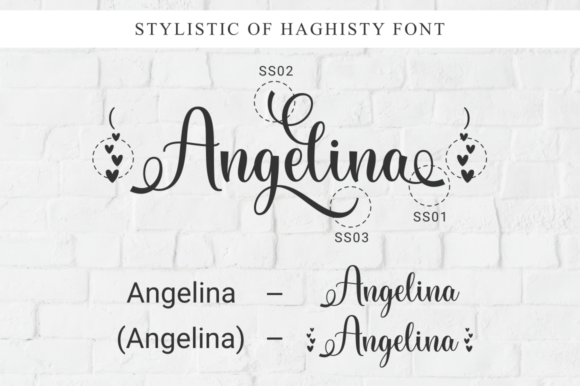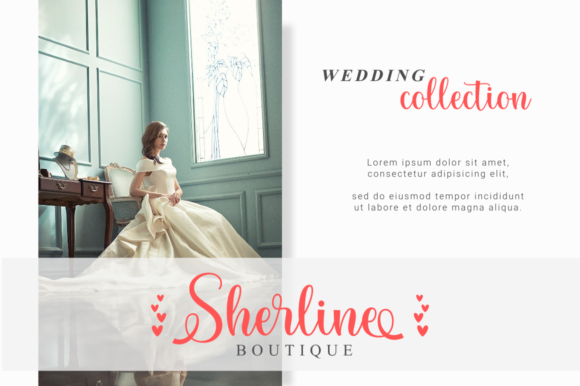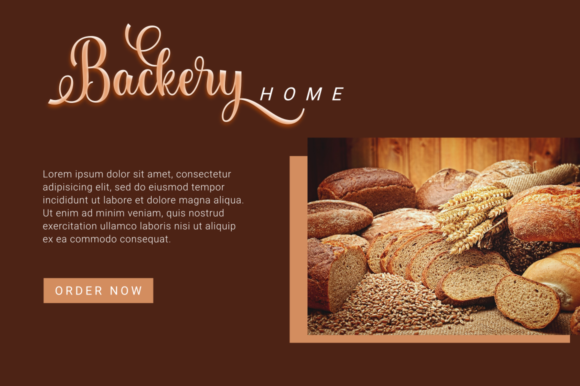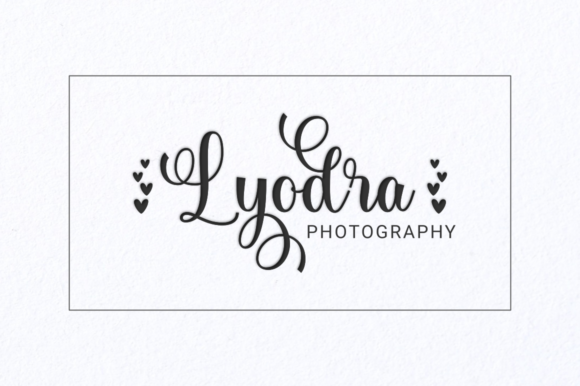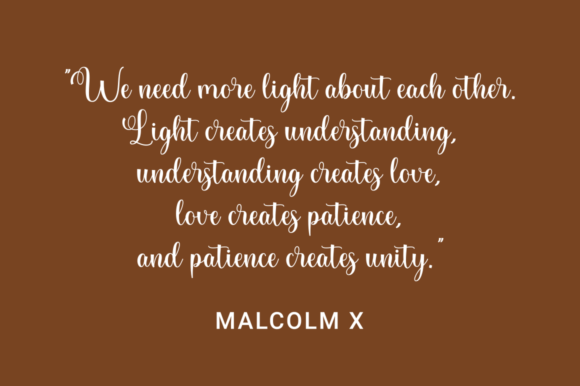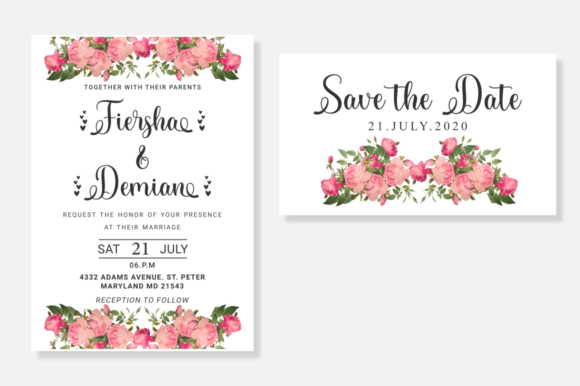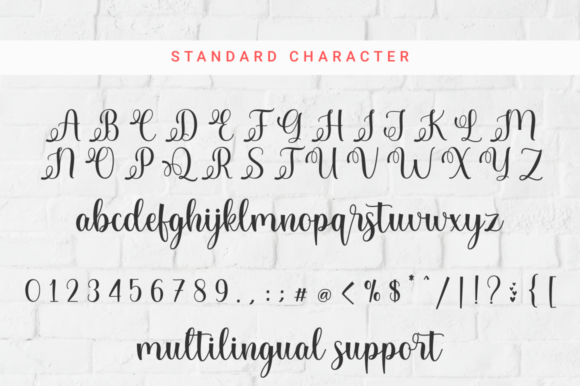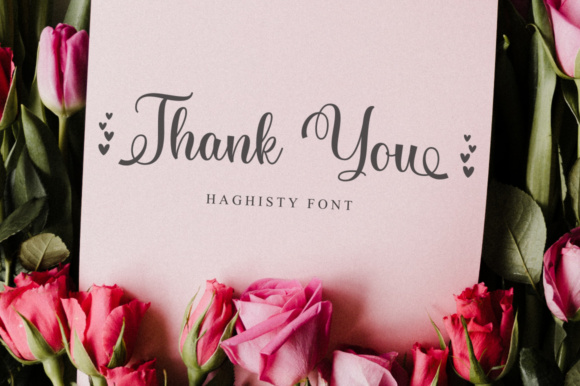
Haghisty Font
About Haghisty Font
Haghisty is a truly enchanting and magical handwritten font that captivates with its beauty and charm. Its elegant strokes, intricate details, and flowing lines make it a delightful addition to any creative project. Packed with features, including PUA encoding for easy access to glyphs and swashes, Haghisty offers endless possibilities for crafting breathtaking designs.
In the realm of wedding invitations, Haghisty weaves a spell of romance and allure. The font’s ethereal touch adds a dreamy quality to the invitations, setting the stage for an enchanting celebration of love. With its varying baseline and stunning alternates, each word becomes a work of art, leaving couples and guests alike enchanted by its beauty.
Gracing thank you cards with Haghisty’s magical strokes turns expressions of gratitude into heartfelt masterpieces. The smooth lines and intricate glyphs create an air of sophistication, elevating the messages of appreciation and making recipients feel truly special and cherished.
In the world of quotes and greeting cards, Haghisty adds a touch of wonder and allure to every sentiment. Its versatile style allows for both elegant and whimsical designs, perfectly complementing the mood and message of each creation. Whether it’s an inspirational quote or a heartfelt greeting, Haghisty brings words to life in the most enchanting way.
Logos designed with Haghisty exude an aura of enchantment and allure. Its flowing lines and unique letterforms create a captivating visual identity that instantly draws attention and leaves a lasting impression. The font’s magical appeal sets brands apart, making them stand out in a sea of competition.
For business cards, Haghisty adds a touch of fairy-tale charm. Its smooth lines and gorgeous glyphs create an elegant and inviting design, leaving a lasting impact on potential clients and partners. Handing out a business card in this font becomes a memorable experience, evoking a sense of enchantment that lingers.
Beyond traditional designs, Haghisty’s versatility knows no bounds. From social media graphics to art prints and beyond, it adds a touch of magic to any creative endeavor. The font’s ability to effortlessly adapt to various styles and themes makes it an invaluable tool for designers and creators seeking to bring their visions to life.
In conclusion, Haghisty is a beautiful and magical handwritten font that weaves a spell of elegance and allure. With its PUA encoding, it offers easy access to its stunning glyphs and swashes, allowing designers to unleash their creativity without limitations. From wedding invitations to logos, quotes, greeting cards, and beyond, Haghisty’s versatile style casts a spell on every design, creating truly spectacular and enchanting masterpieces. Fall in love with the magic of Haghisty and watch as your creative visions come to life!